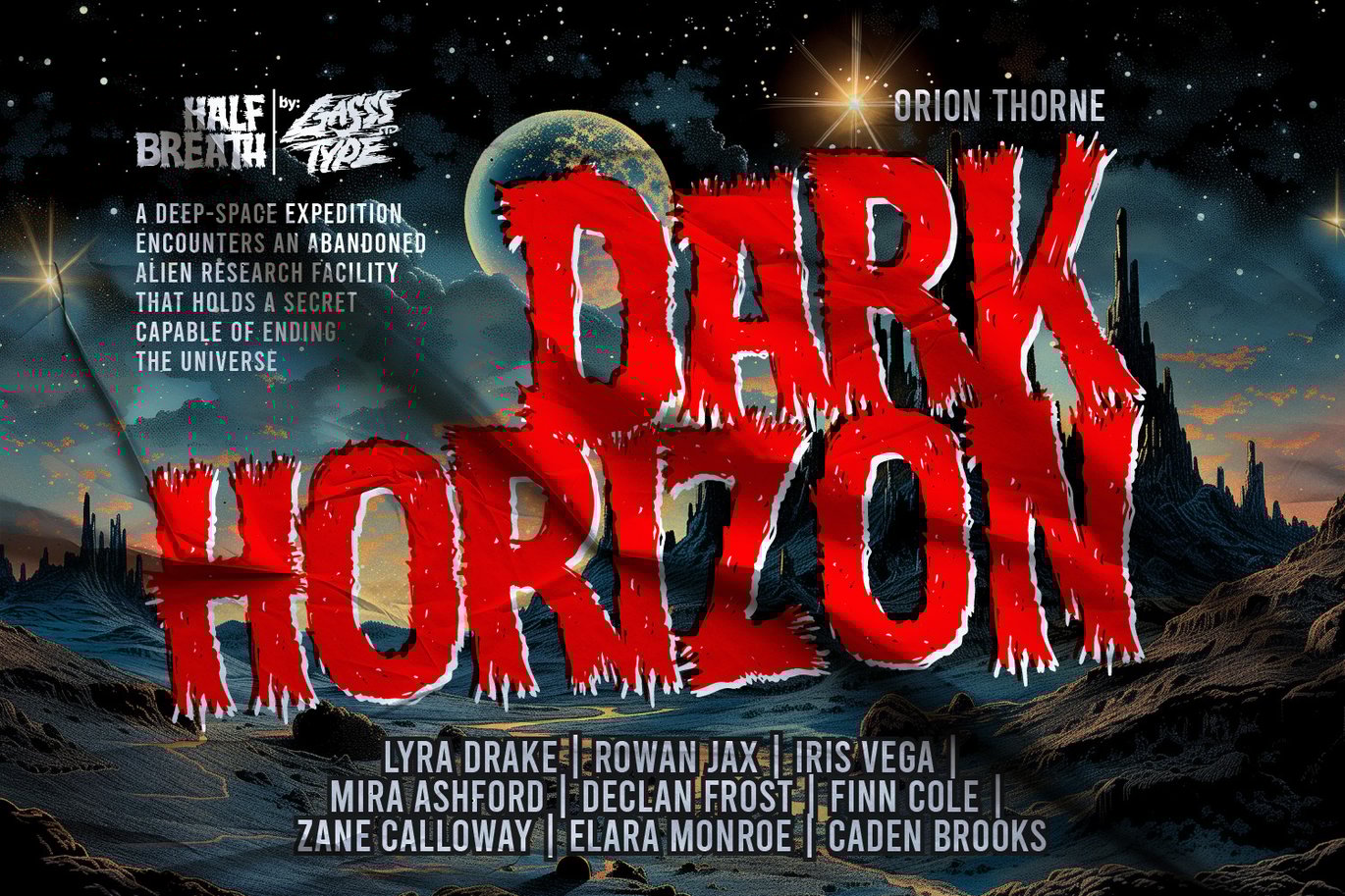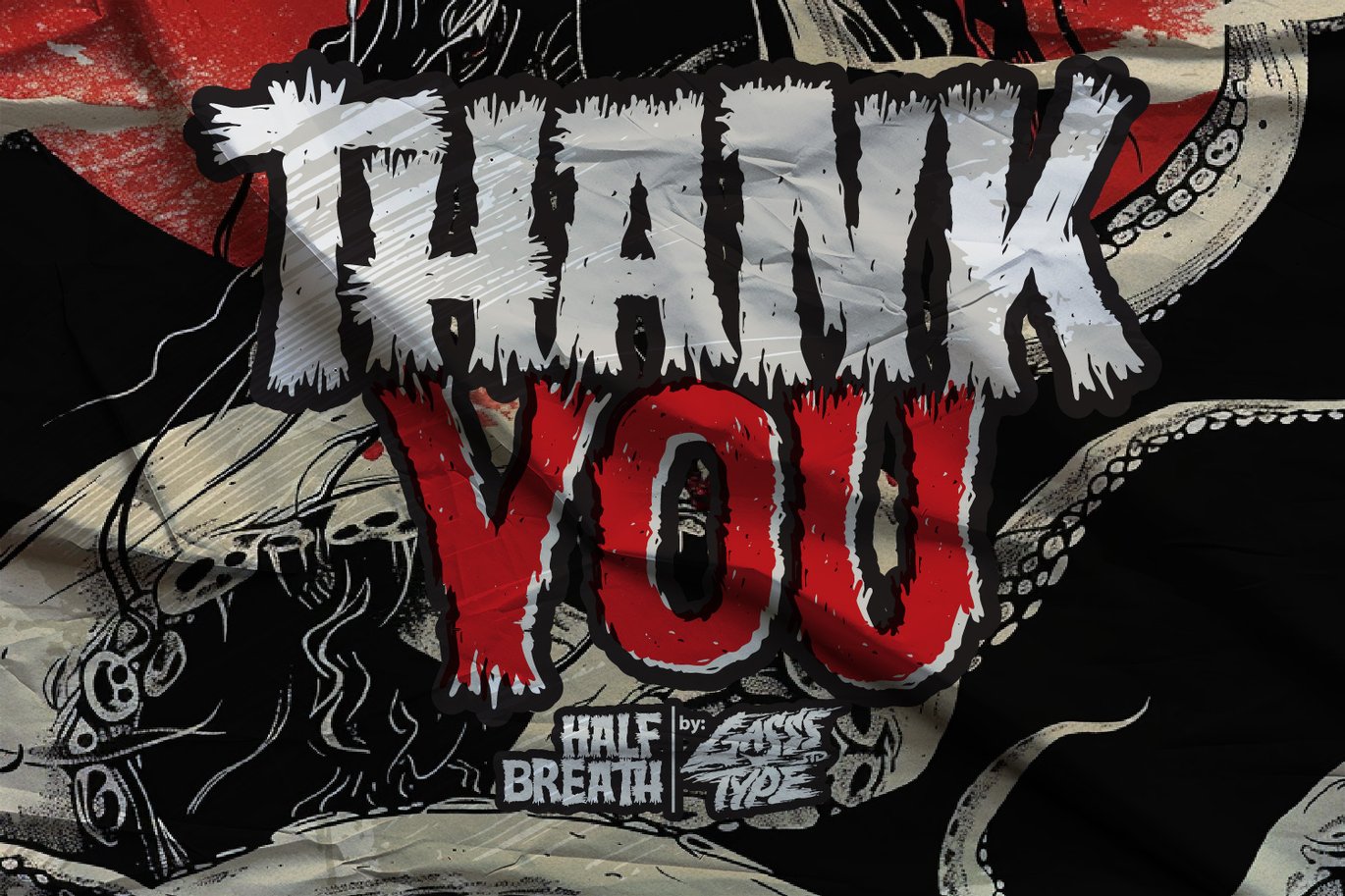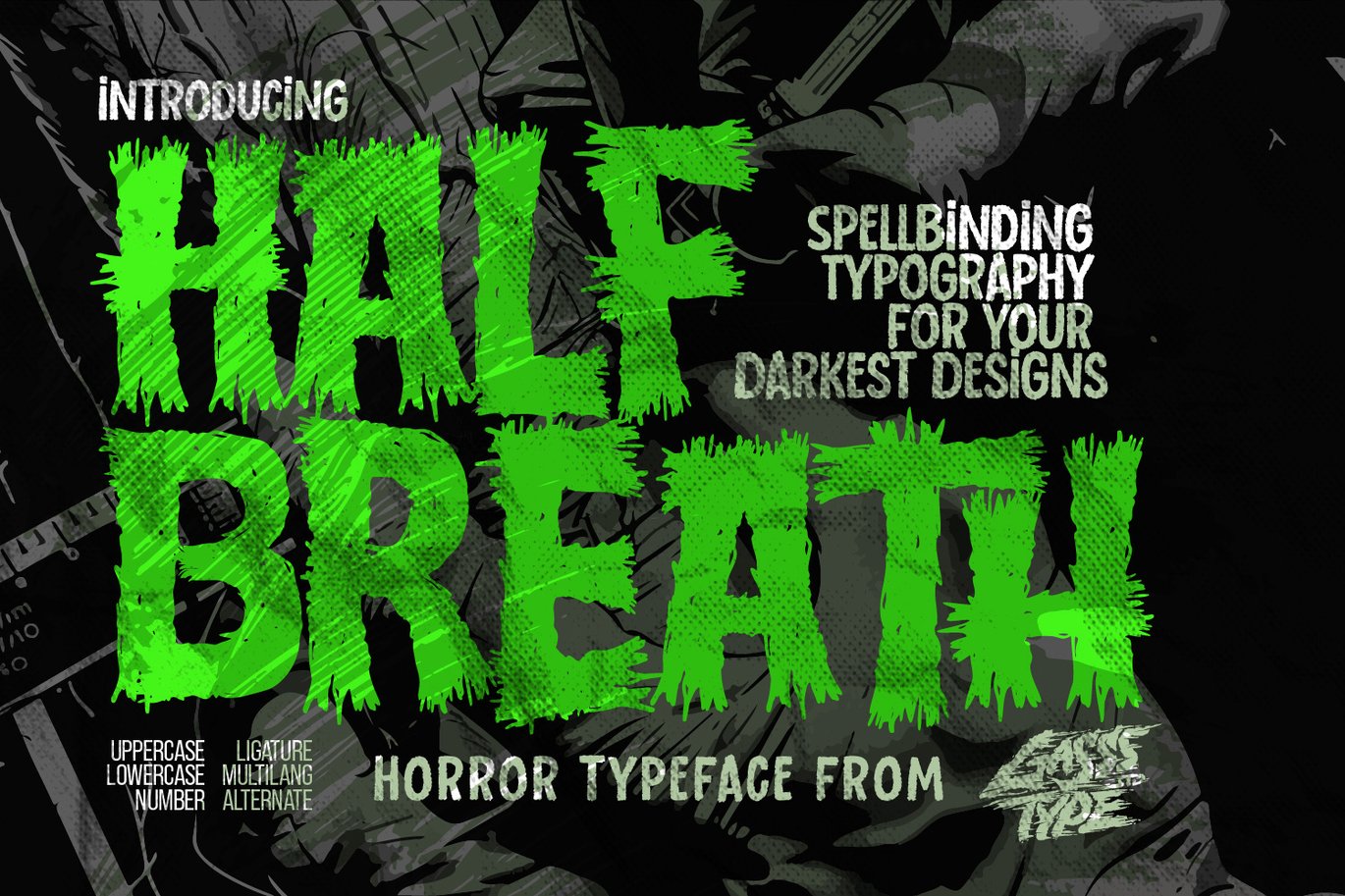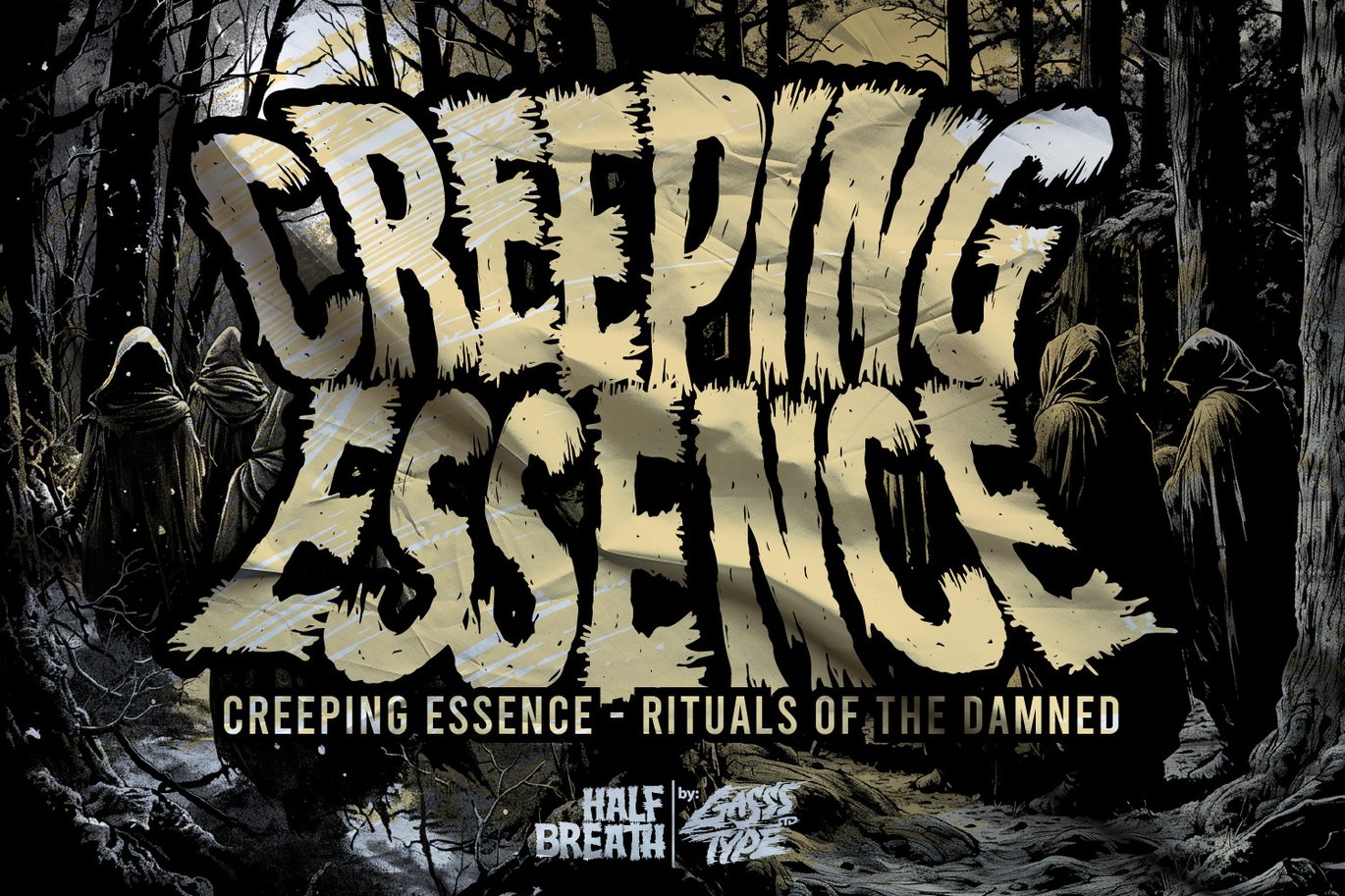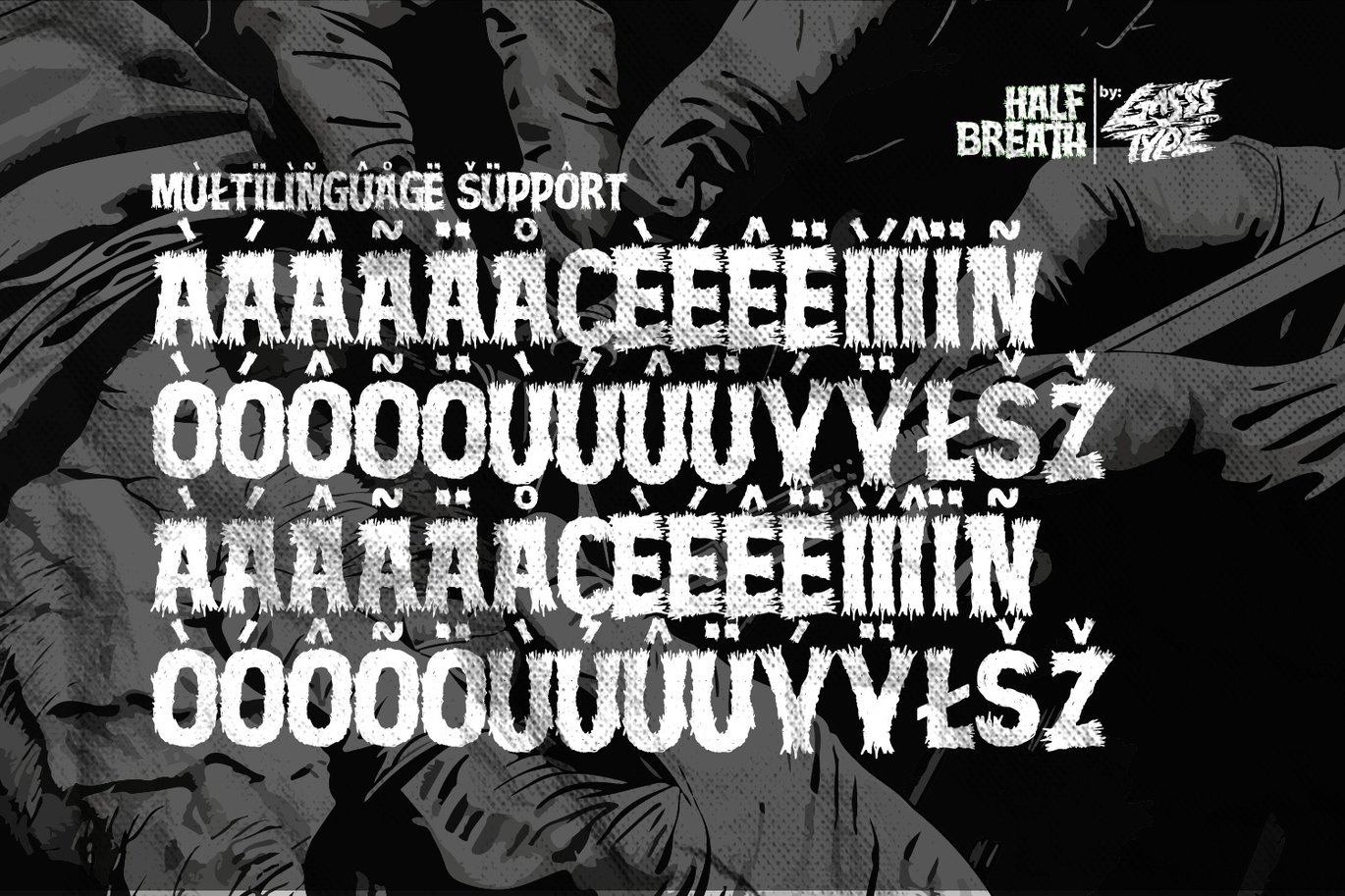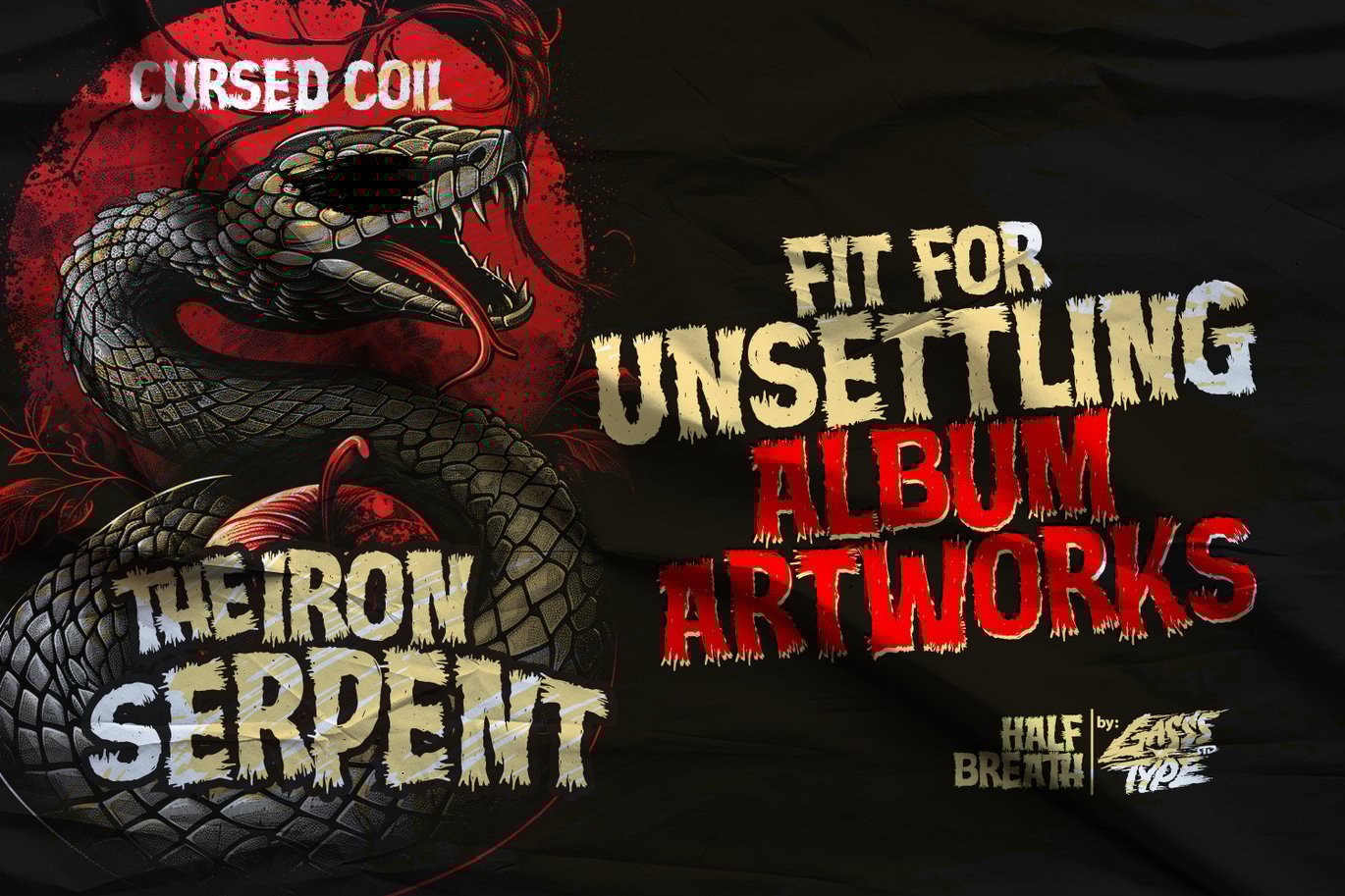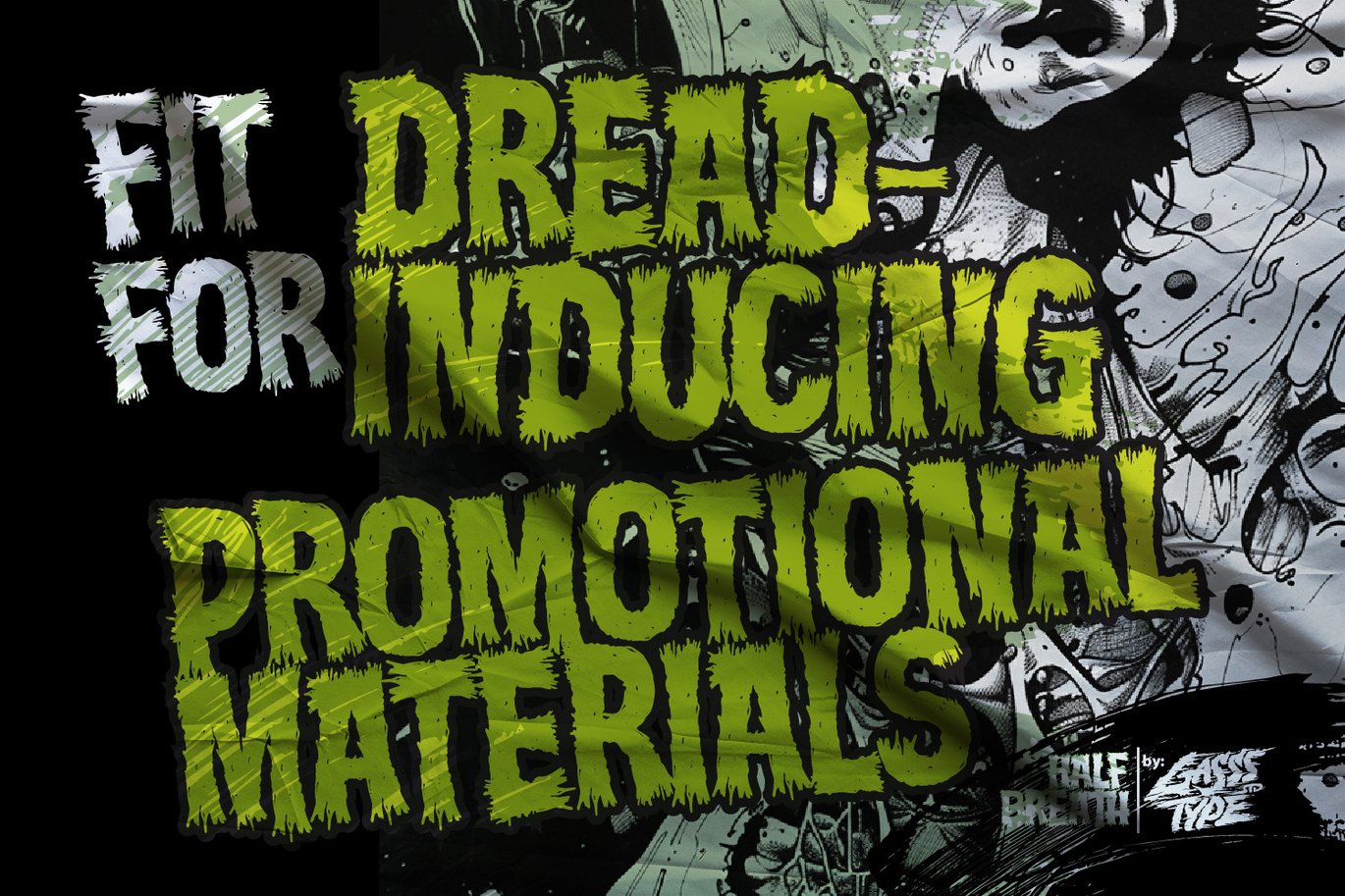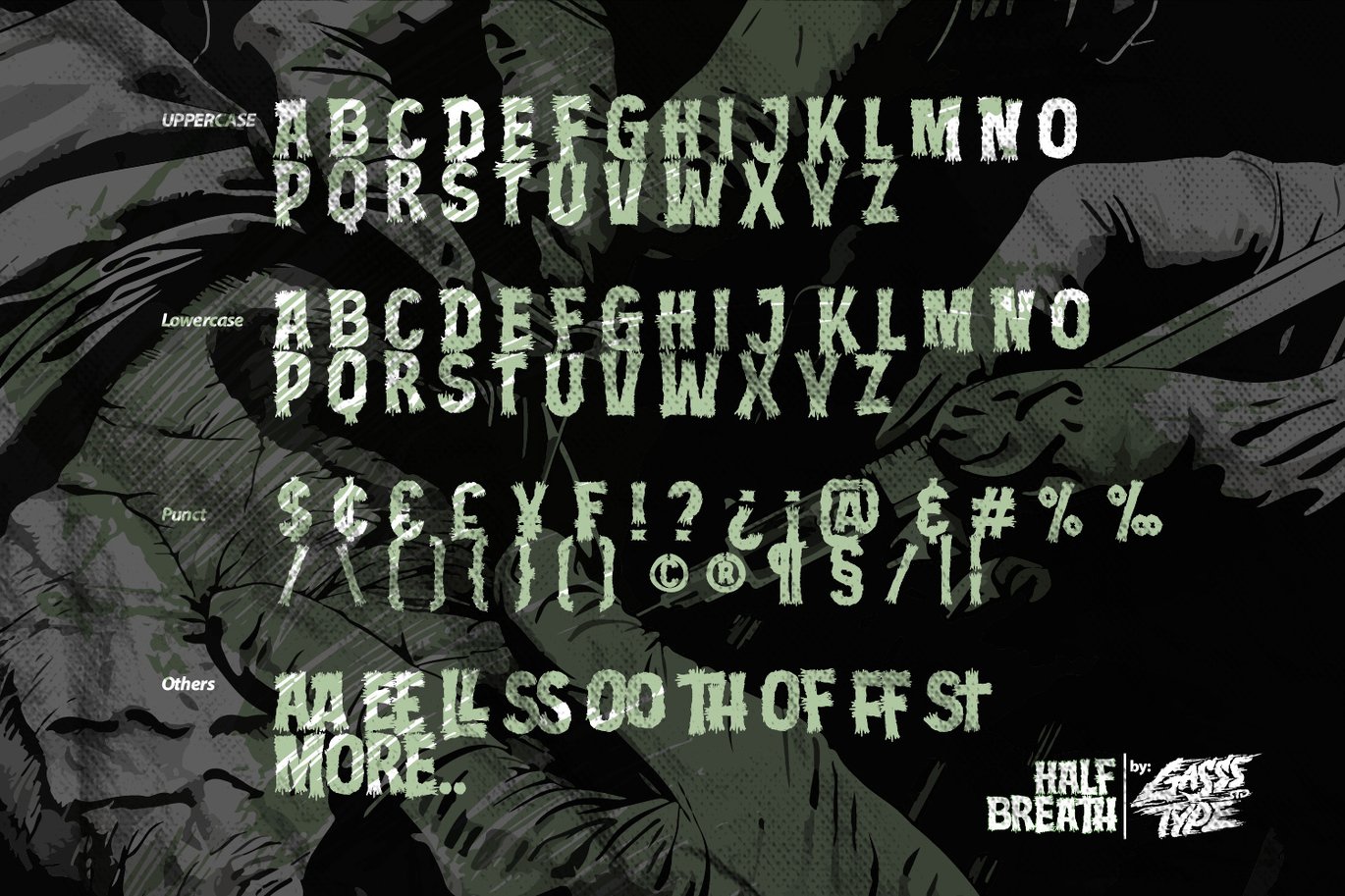
Half Breath – Rotten Font
Half Breath – Rotten Font for Black Metal Designs
Perfect for creating dark, atmospheric designs, Half Breath embodies the raw, decayed essence of black metal. This font’s distressed and rotten appearance makes it ideal for album covers, band logos, and any project that demands an eerie, unsettling vibe. With its jagged edges and aged texture, Half Breath delivers a powerful visual impact that resonates with the spirit of black metal.